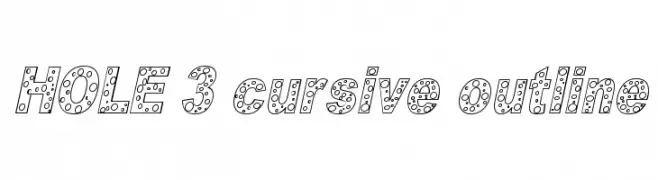
A bold, outlined, and leaning font with a modern, dynamic style.
A bold, outlined font with a three-dimensional effect and consistent character height.
A modern, geometric sans-serif font with uniform strokes and strong visual impact.
A bold, outlined font with a modern and geometric style.
A bold, decorative font with a dotted outline pattern and a cursive-like slant.
A futuristic, geometric font with bold, rounded shapes and a digital aesthetic.